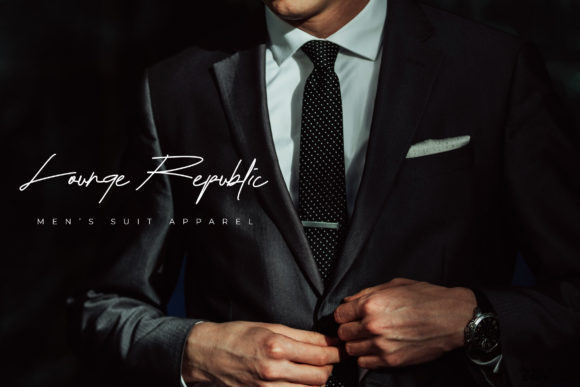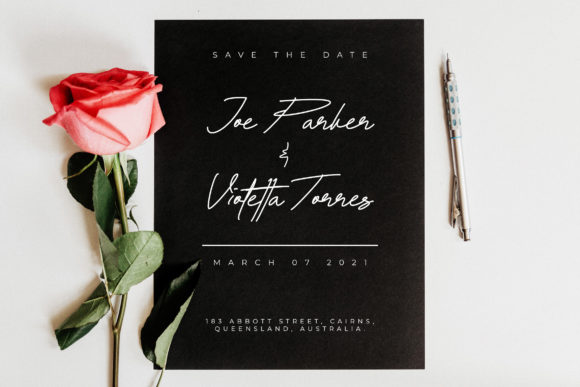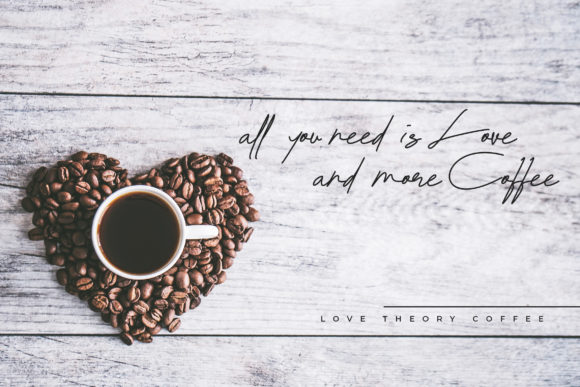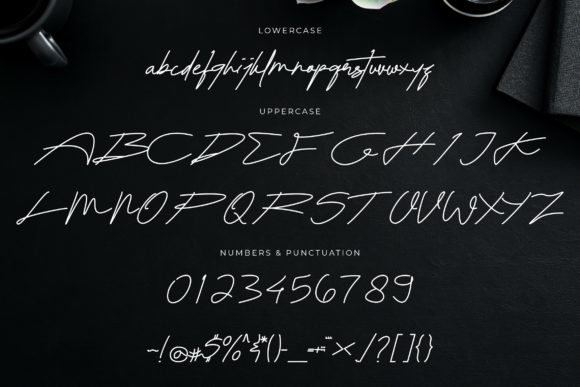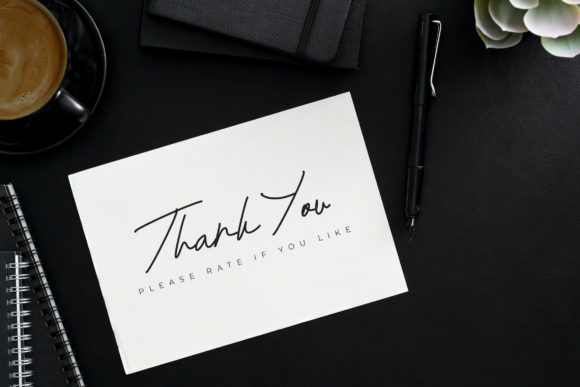
The Perfect Stroke: Elevating Your Designs with Balfontheim Signature Font
There’s nothing quite like the thrill of creating something from scratch. The blank page, the endless possibilities, the spark of inspiration that sets your imagination ablaze. It’s in these moments that we designers come alive, pouring our hearts and souls into every detail. And when it comes to making a lasting impression, there’s one tool that stands out from the rest: the Balfontheim Signature Font.
This stunning script font is a masterclass in elegance and sophistication, making it the perfect choice for logos, branding, and quotes that demand attention. With every letter imbued with a unique and beautiful touch, the Balfontheim Signature Font has the power to bring your designs to life in a way that’s both captivating and memorable.
Balfontheim Signature Font Key Features
- Font Style: Script font with elegant, cursive strokes and intricate details, ideal for signature-style designs.
- Unique Characteristics: Features a unique, hand-drawn feel with subtle variations in line width and spacing, giving it a natural, organic look.
Balfontheim Signature Font Review
I recently had the chance to work with the Balfontheim Signature Font, and I must say it’s a unique and stylish addition to any design project. ✨ The font’s elegant curves and refined details make it perfect for creating sophisticated and luxurious designs. It’s particularly well-suited for branding and advertising materials, such as business cards, letterheads, and brochures.
The font’s versatility is another major plus. ✨ It can be used in a variety of contexts, from formal events to high-end product launches. Additionally, the font’s OpenType features allow for advanced typographic control, making it easy to customize and adapt to different design needs.
What Could Be Improved
While the Balfontheim Signature Font is a great addition to any designer’s toolkit, there are a few limitations to consider. ⚠️ One of the main concerns is the font’s limited character set. While it’s extensive for a luxury font, it may not be enough for designers who need to work with multiple languages or special characters.
Another issue is the font’s compatibility with older software and operating systems. ⚠️ Some designers may find that the font doesn’t render properly in certain environments, which can be frustrating and time-consuming to resolve.
In conclusion, the Balfontheim Signature Font is a high-quality, stylish font that’s perfect for designers who want to create sophisticated and luxurious designs. While it may have some limitations, the font’s unique features and versatility make it a valuable addition to any design project.
- Unique and stylish design
- Perfect for branding and advertising materials
- Advanced typographic control through OpenType features
- Limited character set
- Incompatible with older software and operating systems
Balfontheim Signature Font Practical Application Guide
The Balfontheim Signature Font is a unique, elegant font that can add a touch of sophistication to your designs. To use it in various applications, follow these steps:
For the most effective use of the Balfontheim Signature Font, consider the following tips:
Use it sparingly to add emphasis to key text elements.
Combine it with other elegant fonts for a sophisticated look.
The Balfontheim Signature Font is ideal for:
Business cards and letterheads.
High-end marketing materials and branding.
Alternatives to Balfontheim Signature Font for Designers
Great Vibes is a beautiful, elegant script font perfect for creating a sense of luxury and sophistication. It’s ideal for wedding invitations, branding, and packaging designs. Great Vibes has a more refined and delicate feel compared to Balfontheim Signature Font, making it suitable for high-end and premium products.